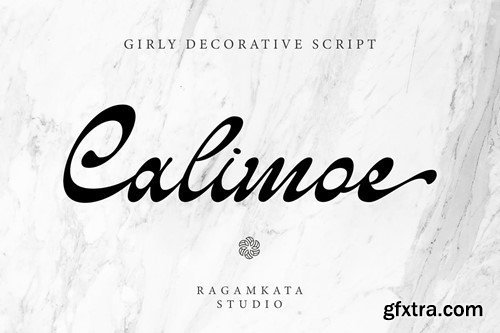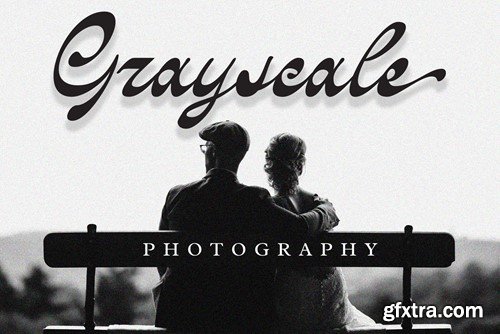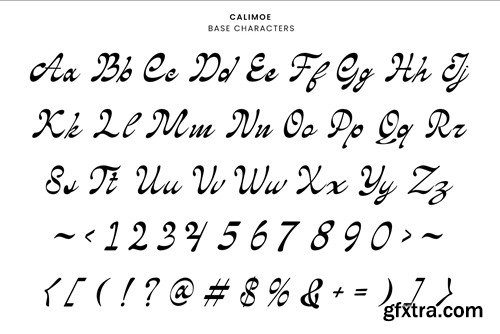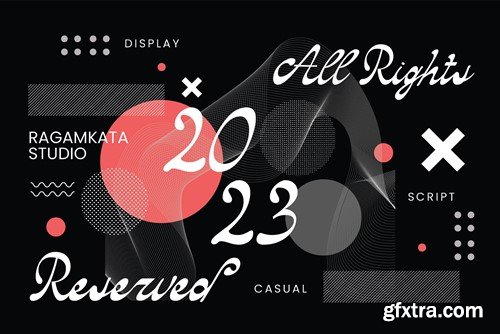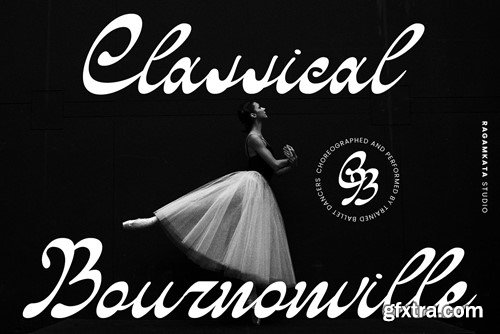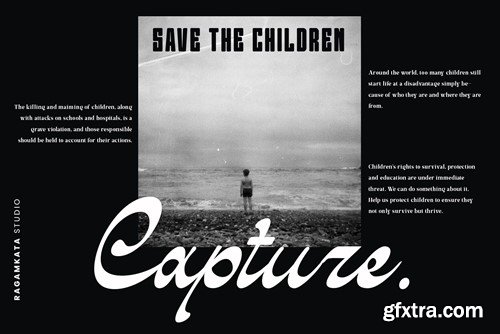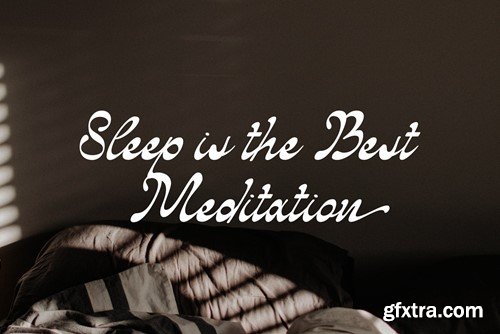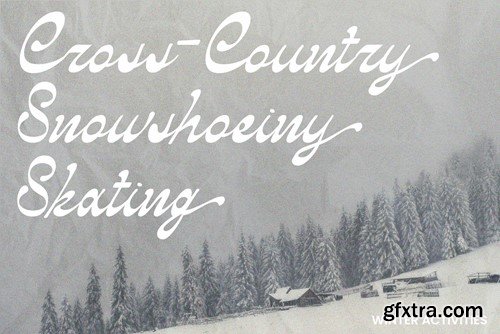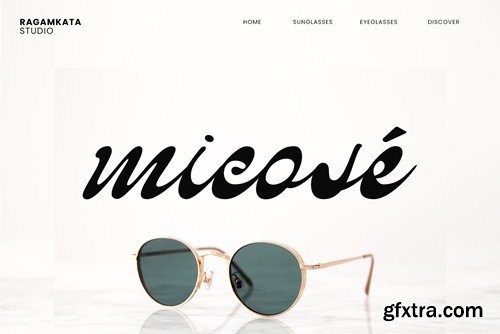
卡尔莫 - 创作手写体字体 YYDZKT2
Calimoe - Crafted Script Font
Calimoe, a meticulously crafted script font that seamlessly blends elegance with a touch of modernity. This typeface is a perfect choice for designers seeking a stylish, clean, and display-worthy font for a variety of creative projects. While being stylish, Calimoe remains highly legible. Each character is carefully crafted to ensure clarity, making it suitable for a range of applications, from branding to editorial design.